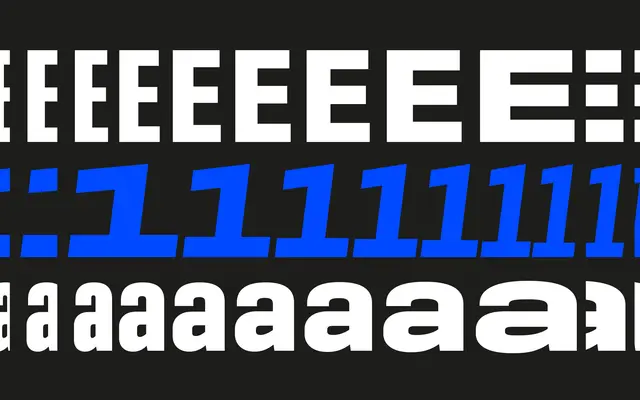
Geogrotesque Sharp
A 99-style geometric grotesque superfamily spanning seven widths and a variable font, refined from the original Geogrotesque by stripping out ink traps and rounded corners.
Built on a decade of work, Geogrotesque Sharp takes the existing Geogrotesque design and simplifies its more idiosyncratic details to produce a cleaner, more versatile face. Seven widths run from XCompressed through to Expanded, each in seven weights from Thin to Bold with matching italics, totalling 98 static styles plus a variable font. The removal of ink traps and rounded corners shifts the family toward screen and web use while preserving the underlying geometric structure.
A geometric grotesque superfamily drawing on the Geogrotesque lineage, with ink traps and rounded corners removed for a cleaner, more neutral appearance suited to screen use.